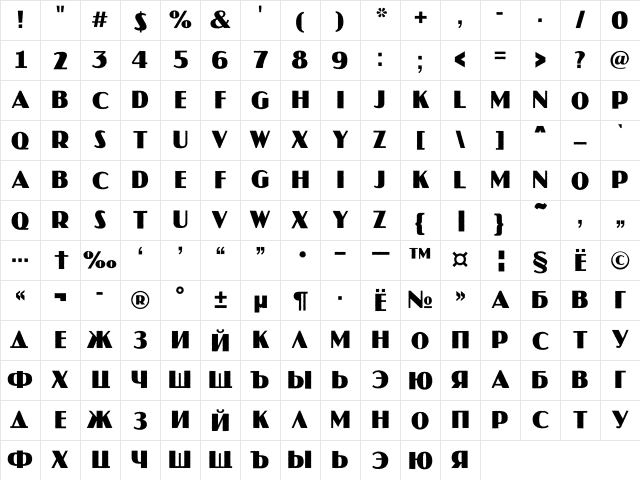
Complete a_JasperTitulRg Bold glyph index. Displaying only characters natively supported by a_JasperTitulRg Bold font.
a_JasperTitulRg is a composed and adaptable typeface that performs quietly and consistently across a wide range of design contexts. Its bold stroke weight gives it real presence on the page.